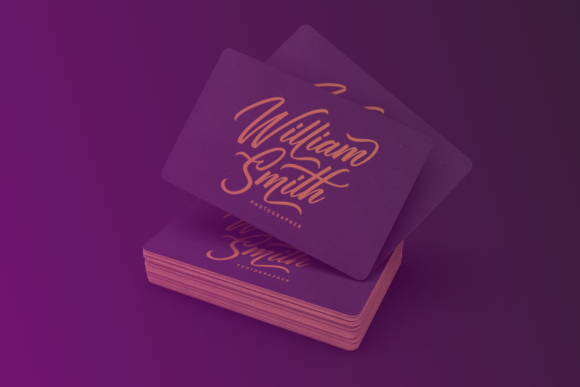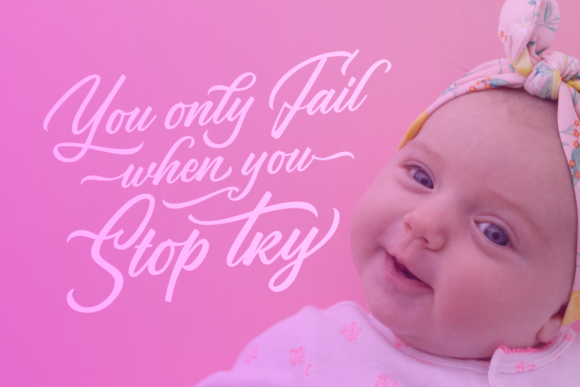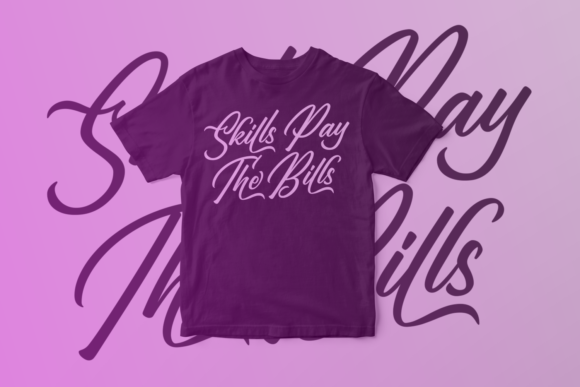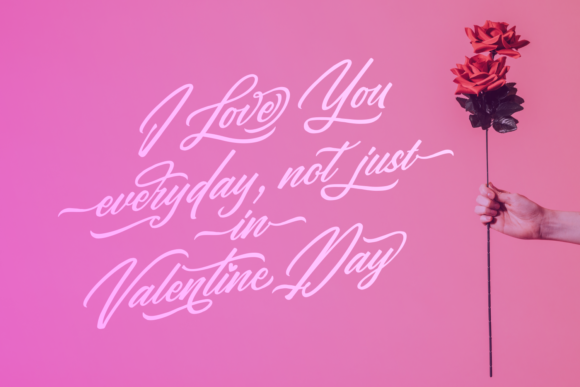
Love in Kendal Font
About Love in Kendal Font
Love in Kendal is an incredibly sweet and charming handwritten font. It will add a whimsical and lovely feel to any crafting idea!